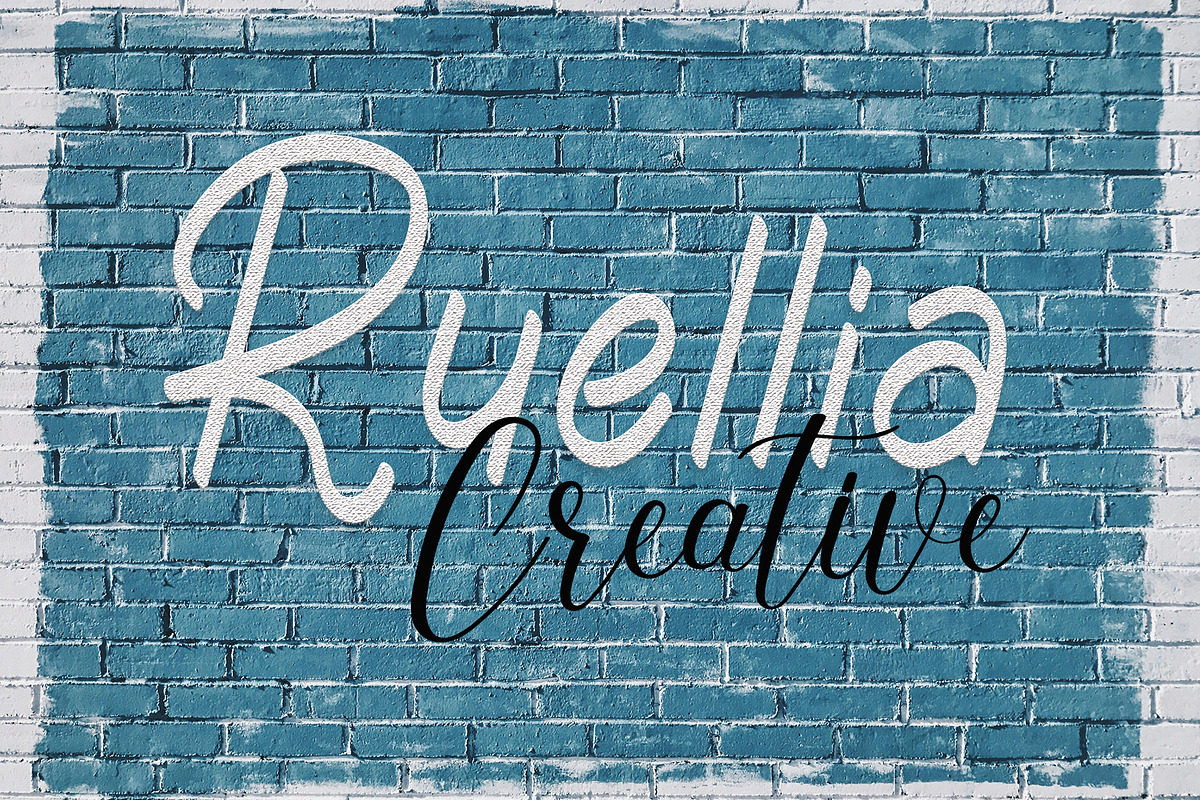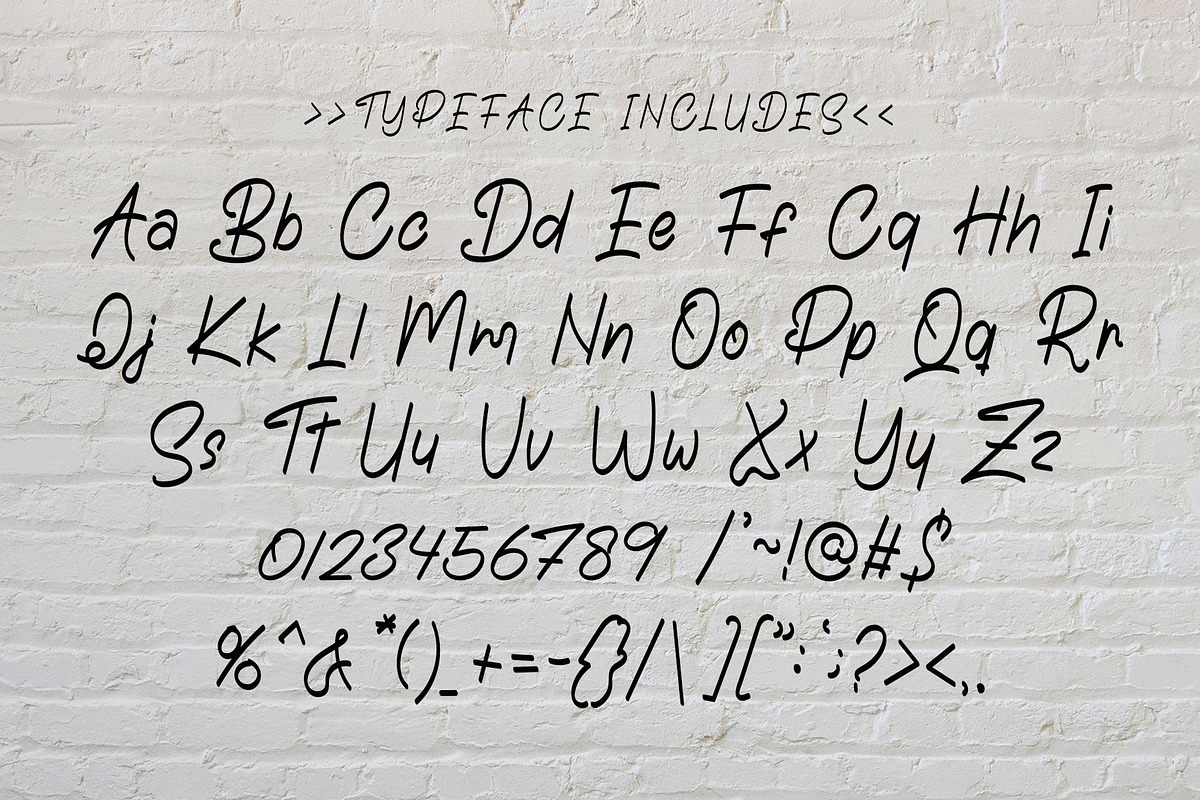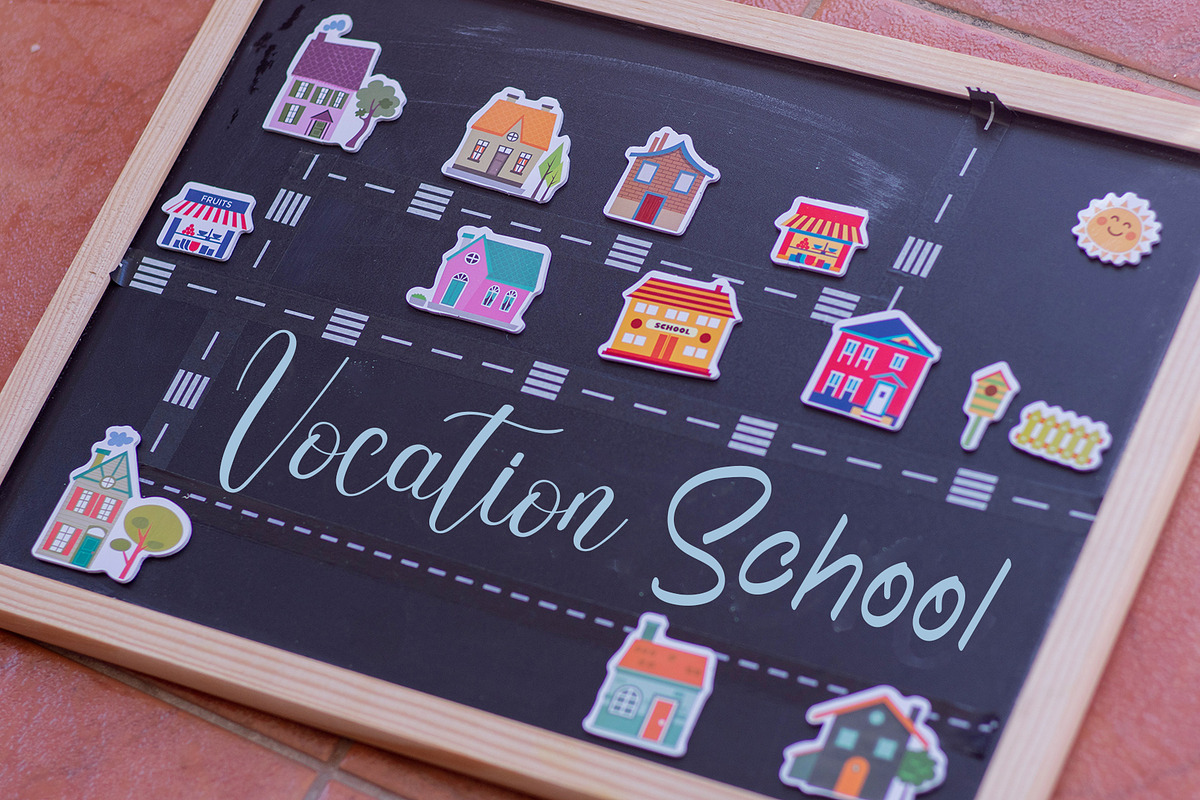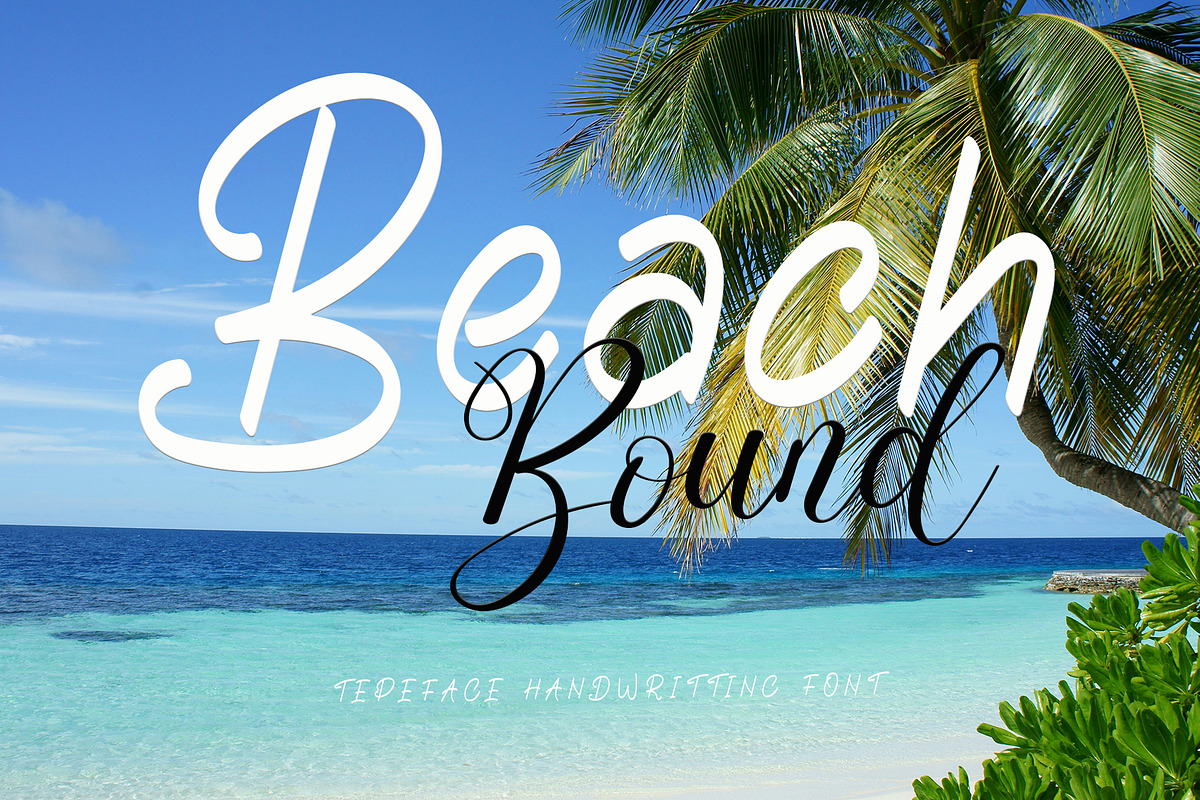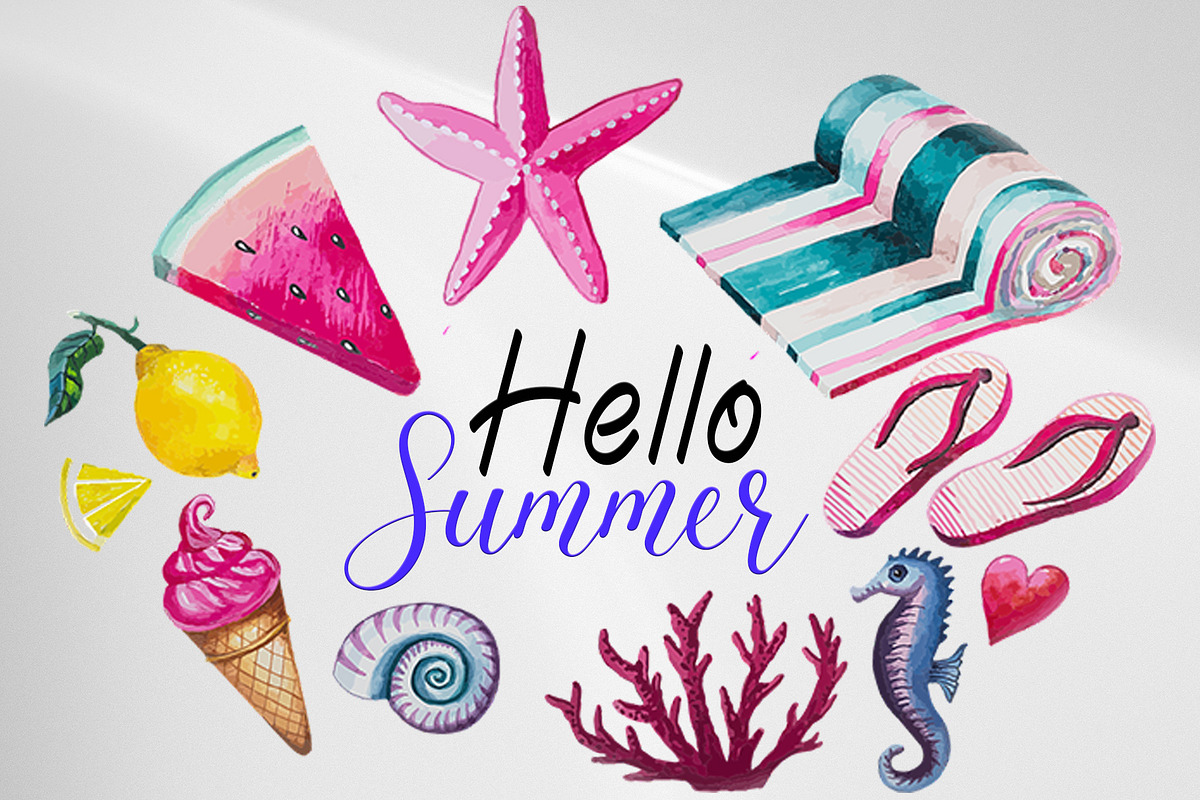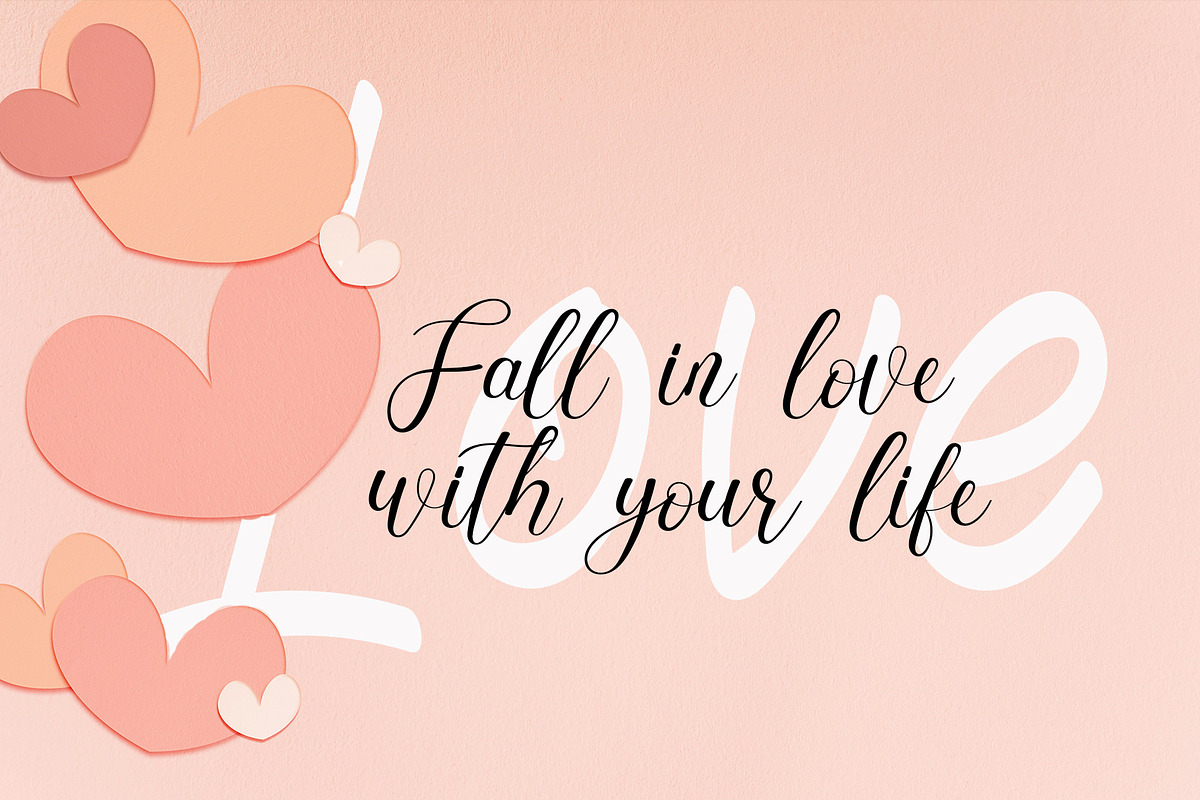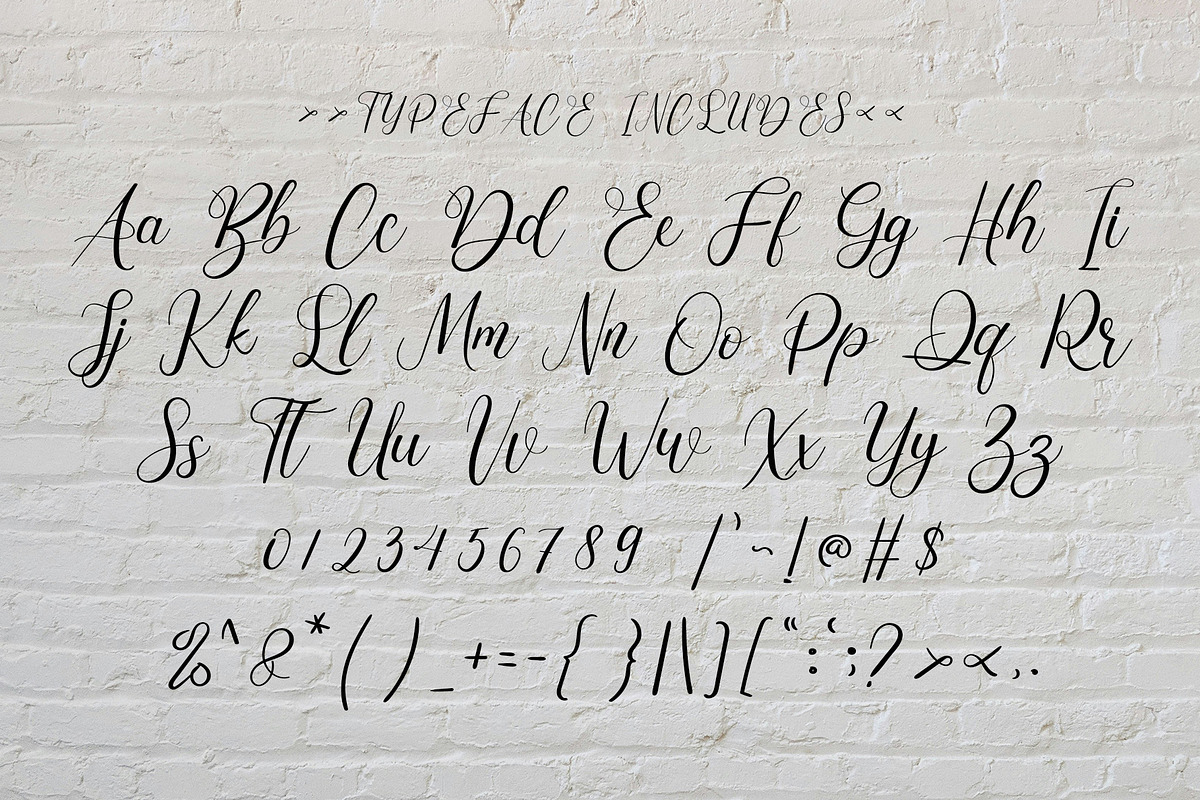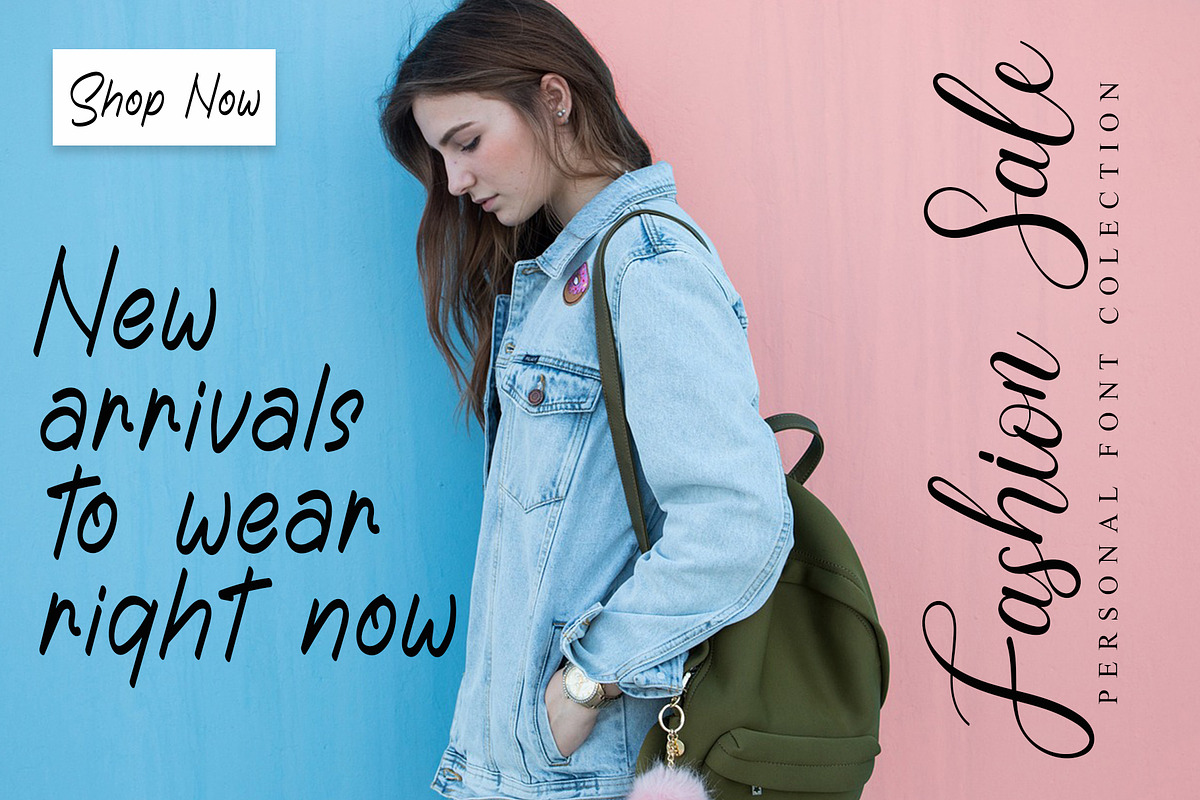
Ruellia Creative
Introducing Ruellia Creative, an exquisite font duo that intertwines uniqueness with elegance. Perfectly suited for a diverse range of applications, from wedding invitations, greeting cards, billboards, to logos and business cards. Wherever the charm of the handwritten touch is desired, Ruellia Creative comes into play!
Crafted with diligence and a keen eye for natural aesthetic, this font stands tall on the foundation of basic yet beautiful lines. Its very creation has been thoughtfully handcrafted to make your spectacular ideas burst into reality. The seamless implementation and easy accessibility of all glyphs and swashes, courtesy of its PUA encoding, make Ruellia Creative a dream to work with.
Streamline your creative process with Ruellia Creative, and pave the way for producing extraordinary work that speaks for your taste and sophistication. This font bridges the gap between your ideas and their tangible manifestation, transforming them into something truly remarkable.